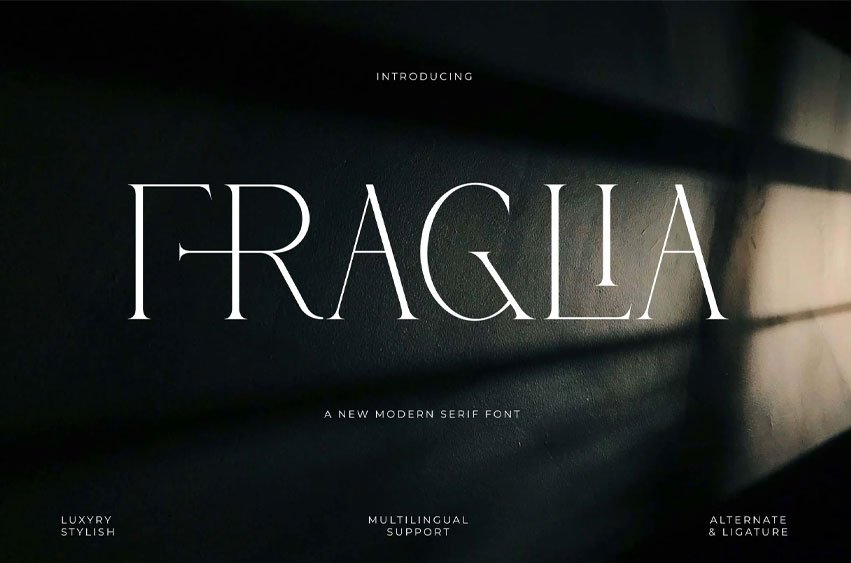
Fraglia Font is an elegant, beautiful, and modern Serif. With its modern and minimalist look, Fragila brings a luxurious, classy, and clean style to your projects, such as websites, modern logos, brand identities, social media quotes, wedding stationery, magazines, and more! Fragila features unique and classy capital letters A to Z and also comes with unique alternates, making Fragila a beautiful font that can be customized for various projects and jobs you want.
Fragila is perfect for: logos, brands, wedding invitations, business cards, greeting cards, posters, magazines, social media, agenda prints, and websites.
- Uppercase and lowercase letters
- Multilingual Characters
- Numbers & punctuation
- Alternative styles and ligatures (on some fonts)